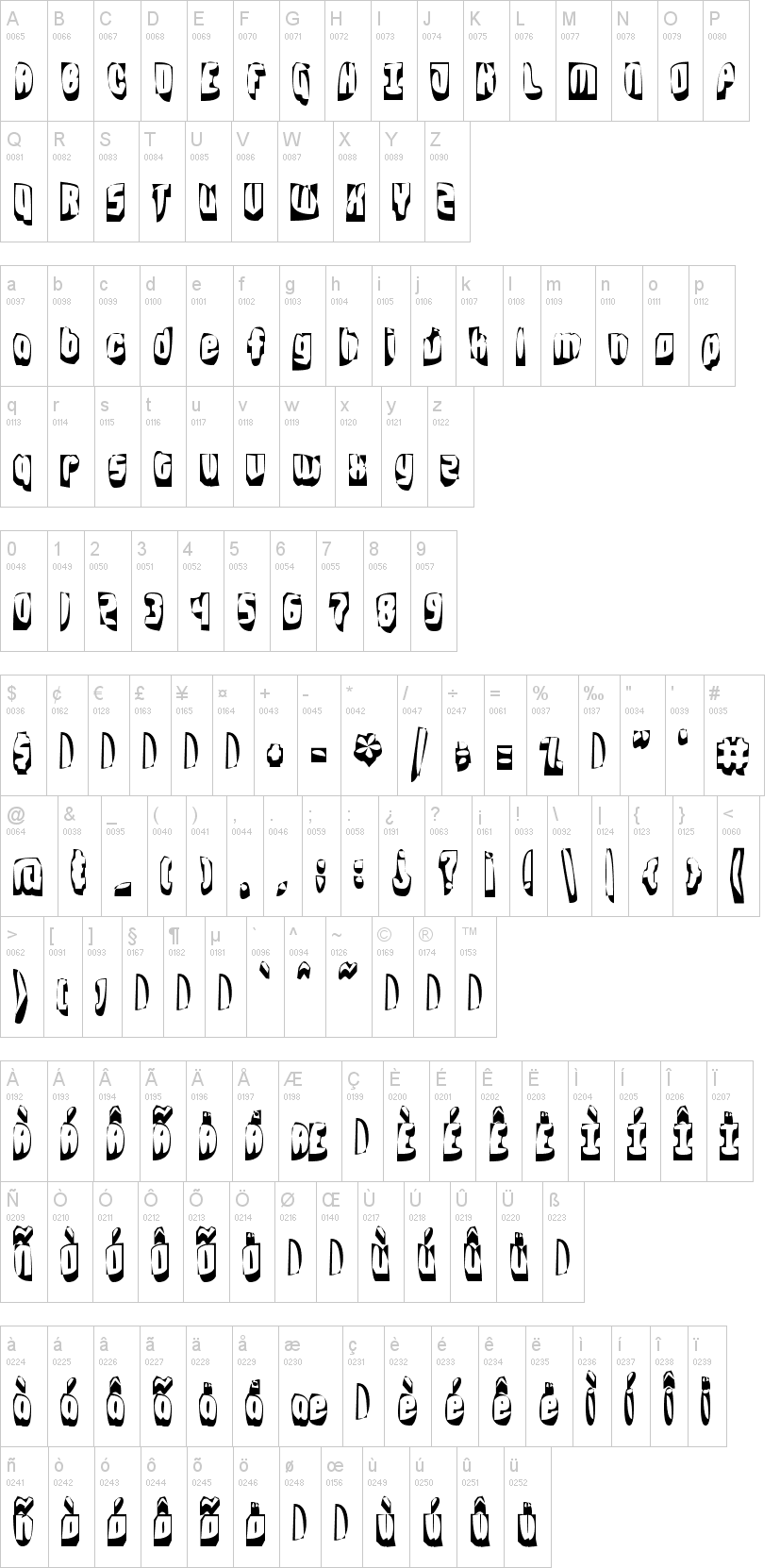
Note of the authorI was playing around and this happened. The more I looked at it the more I liked the chaotic randomness, so I kept it...and thought someone else might like it as well.